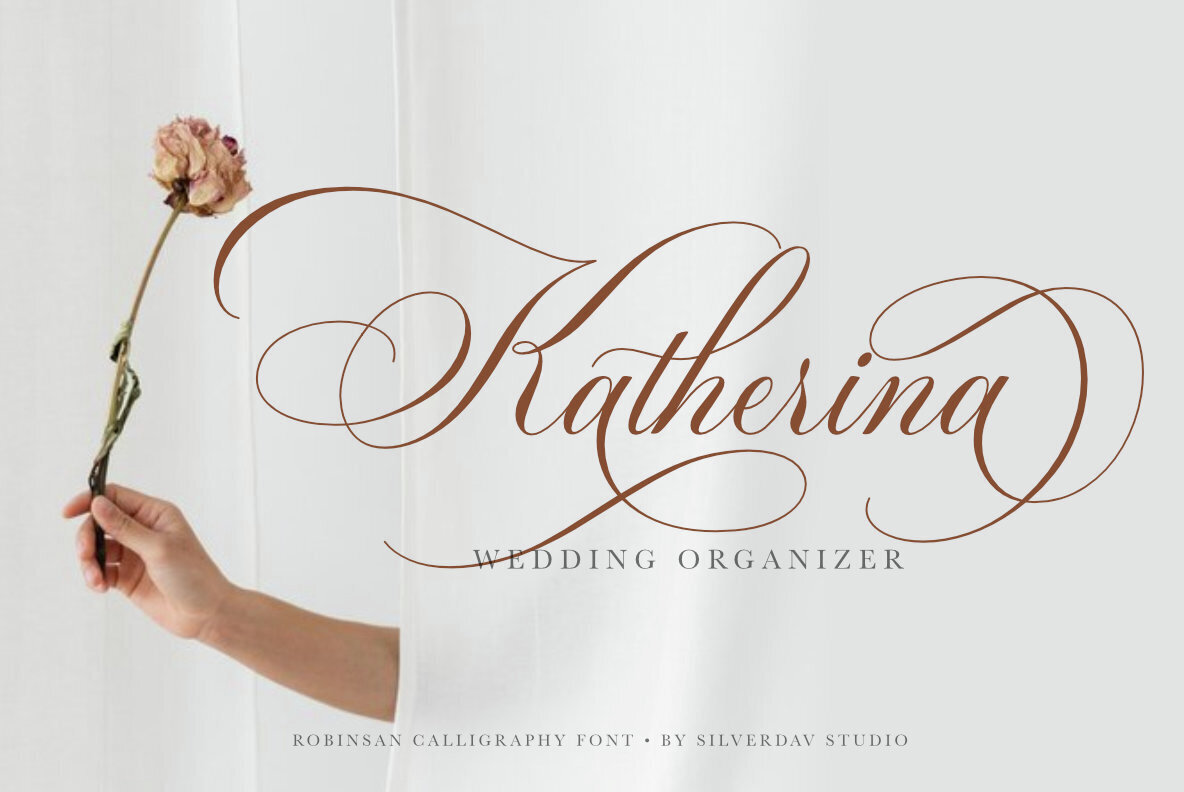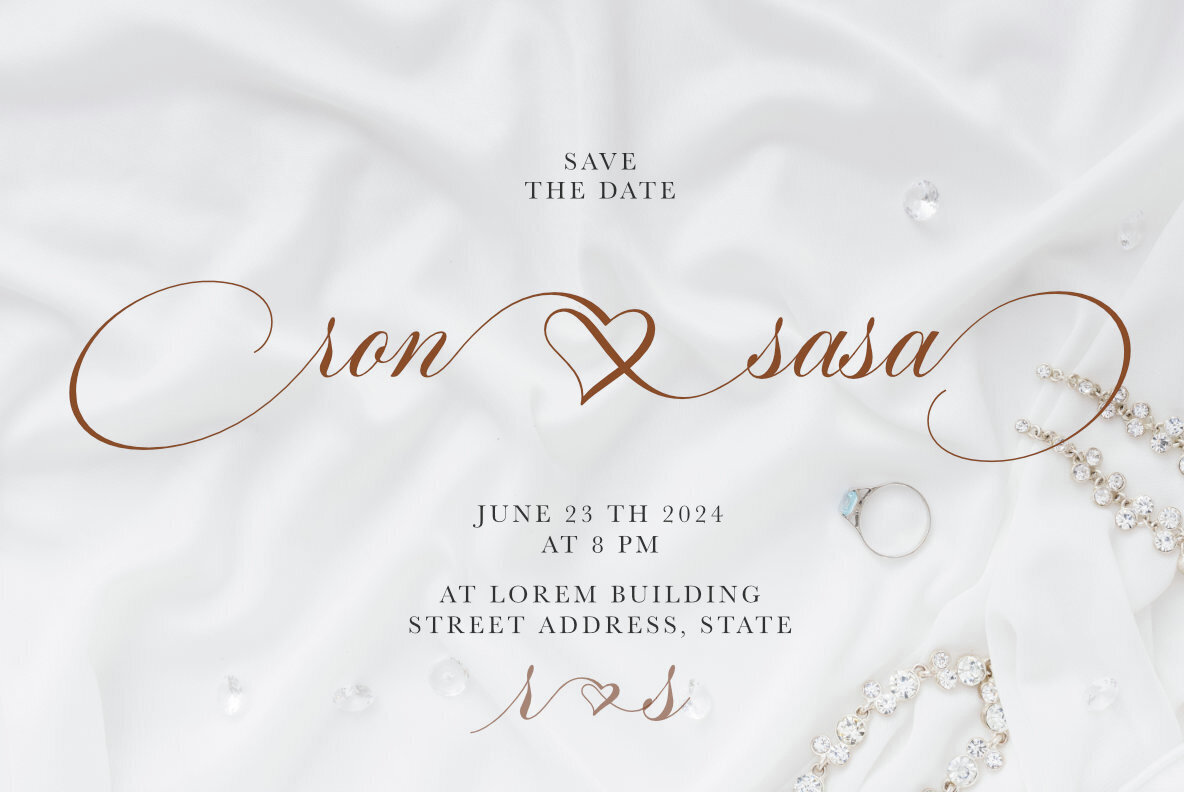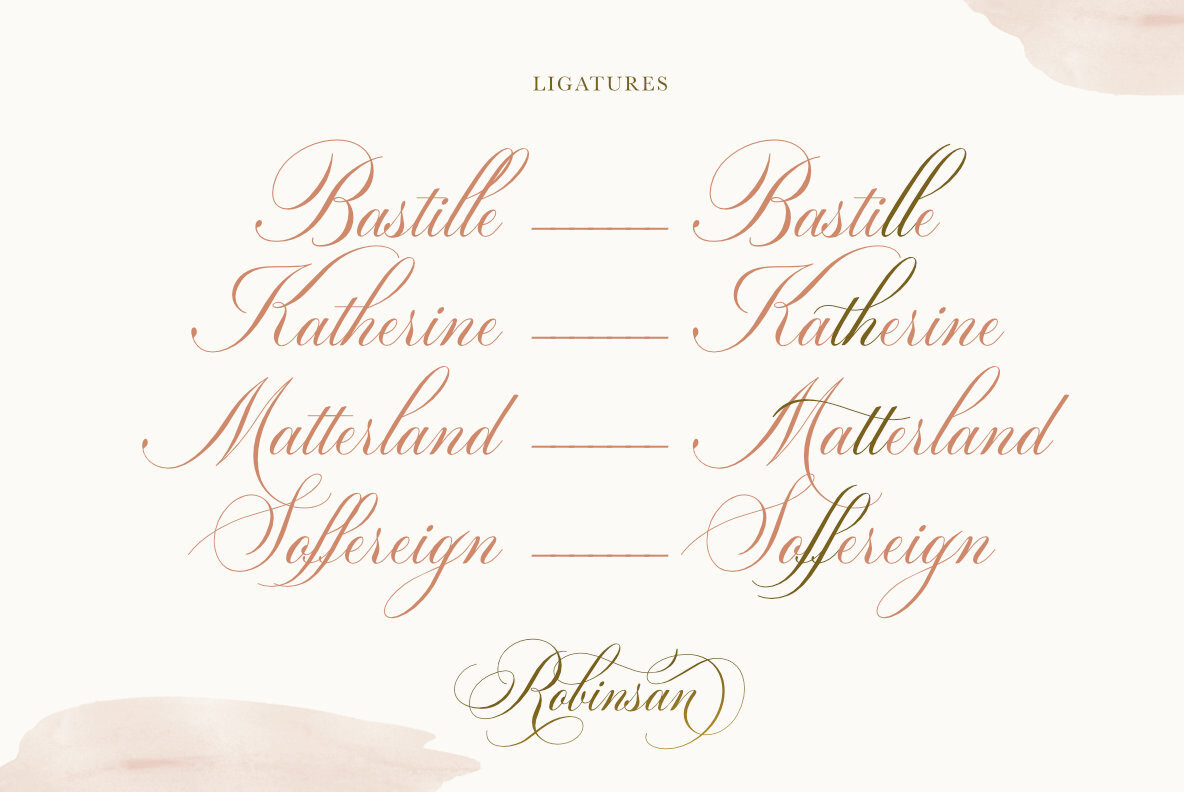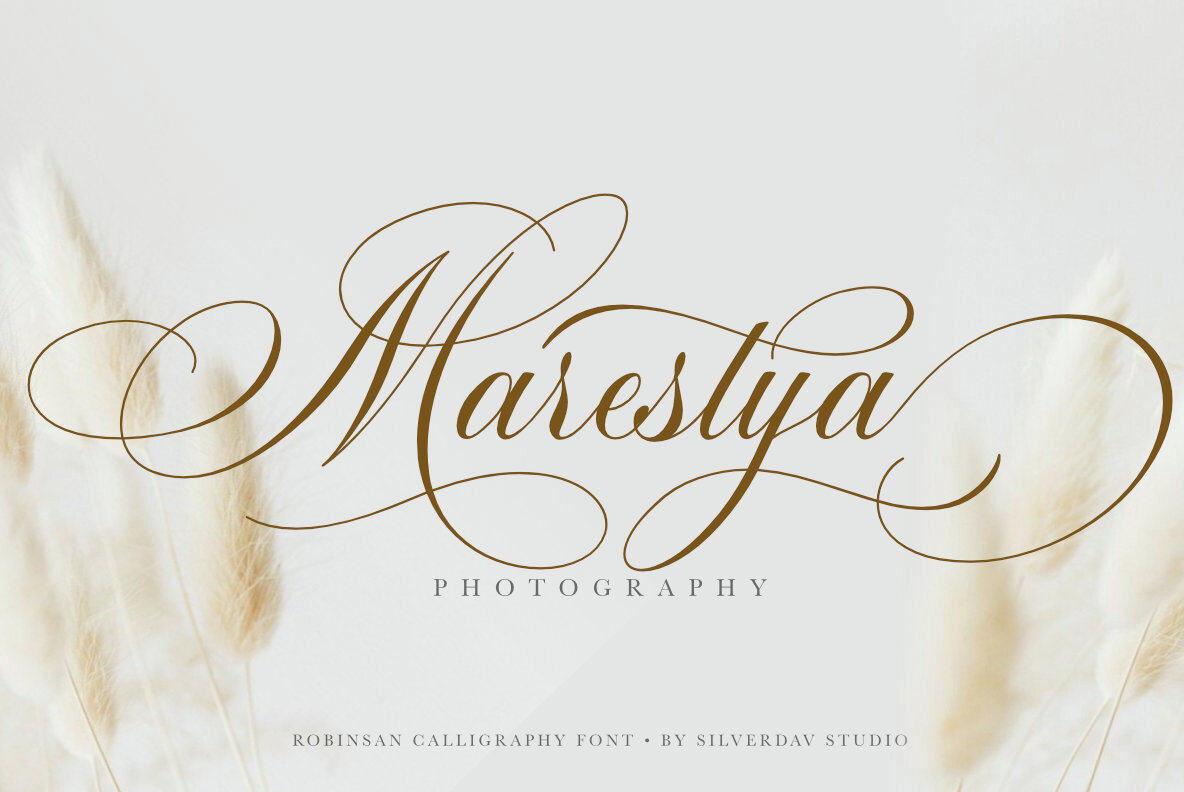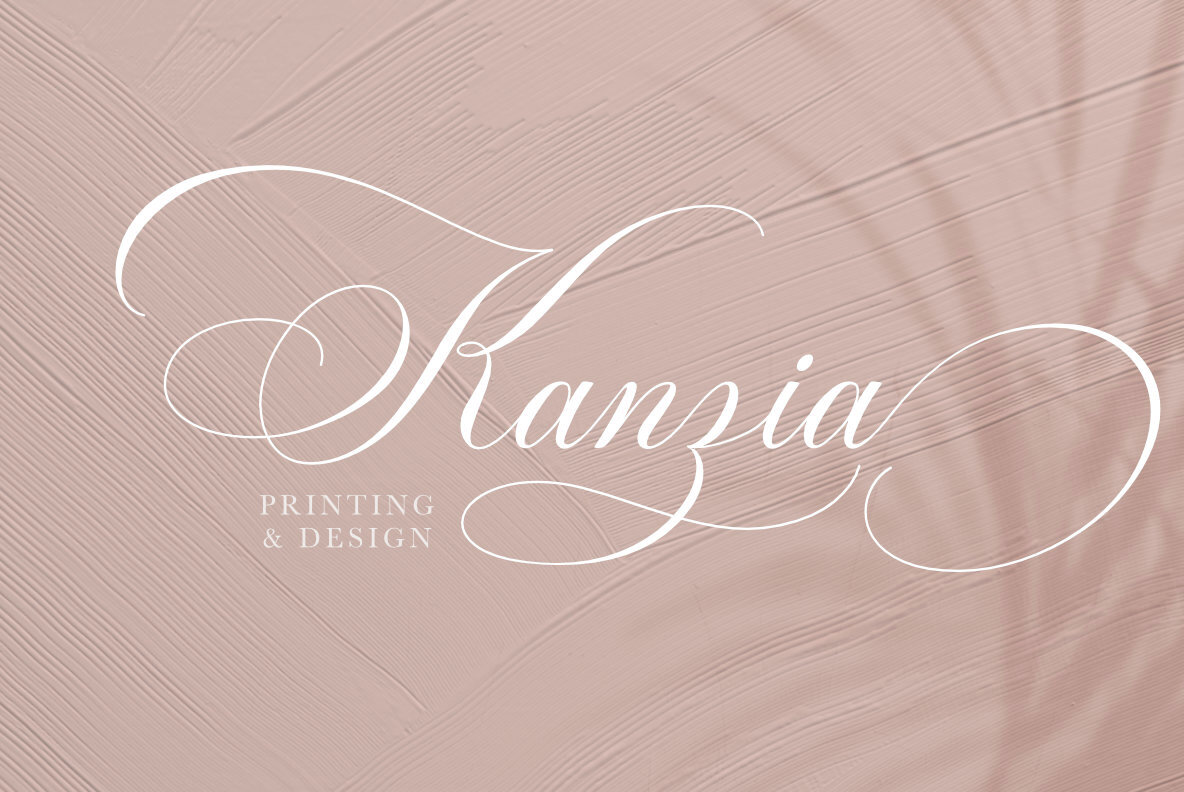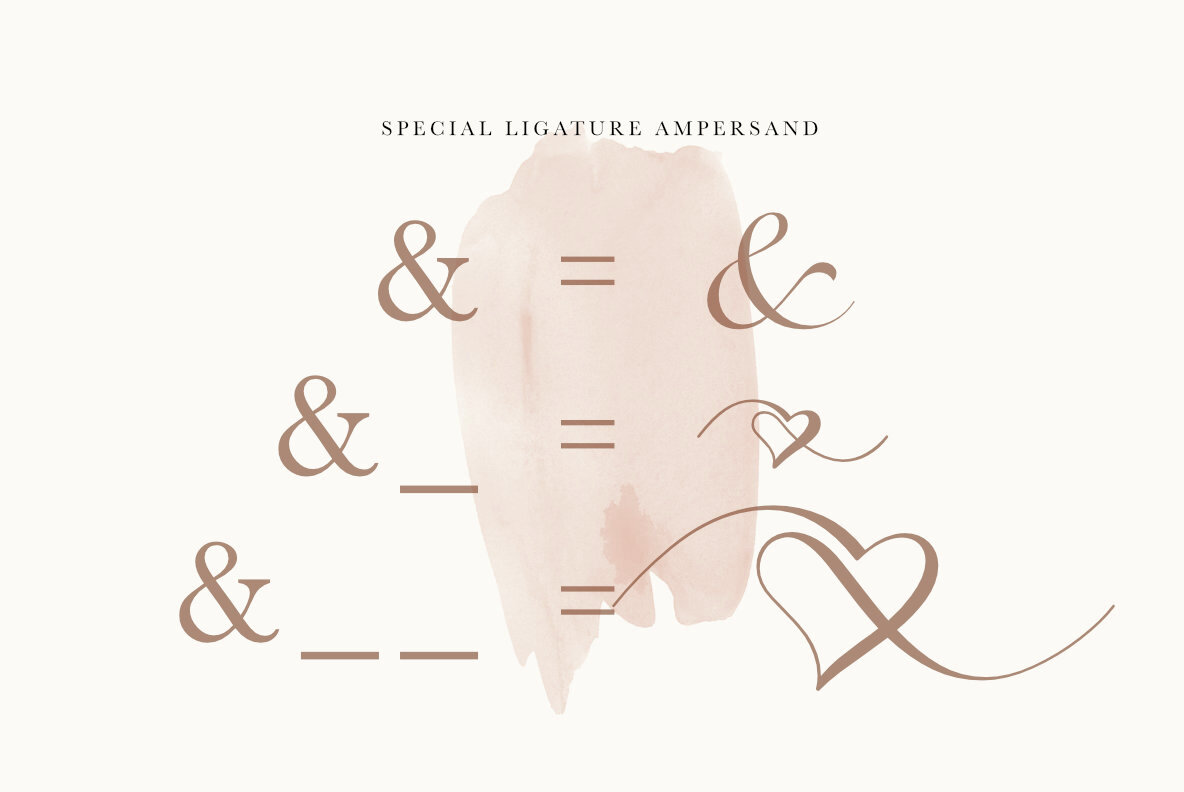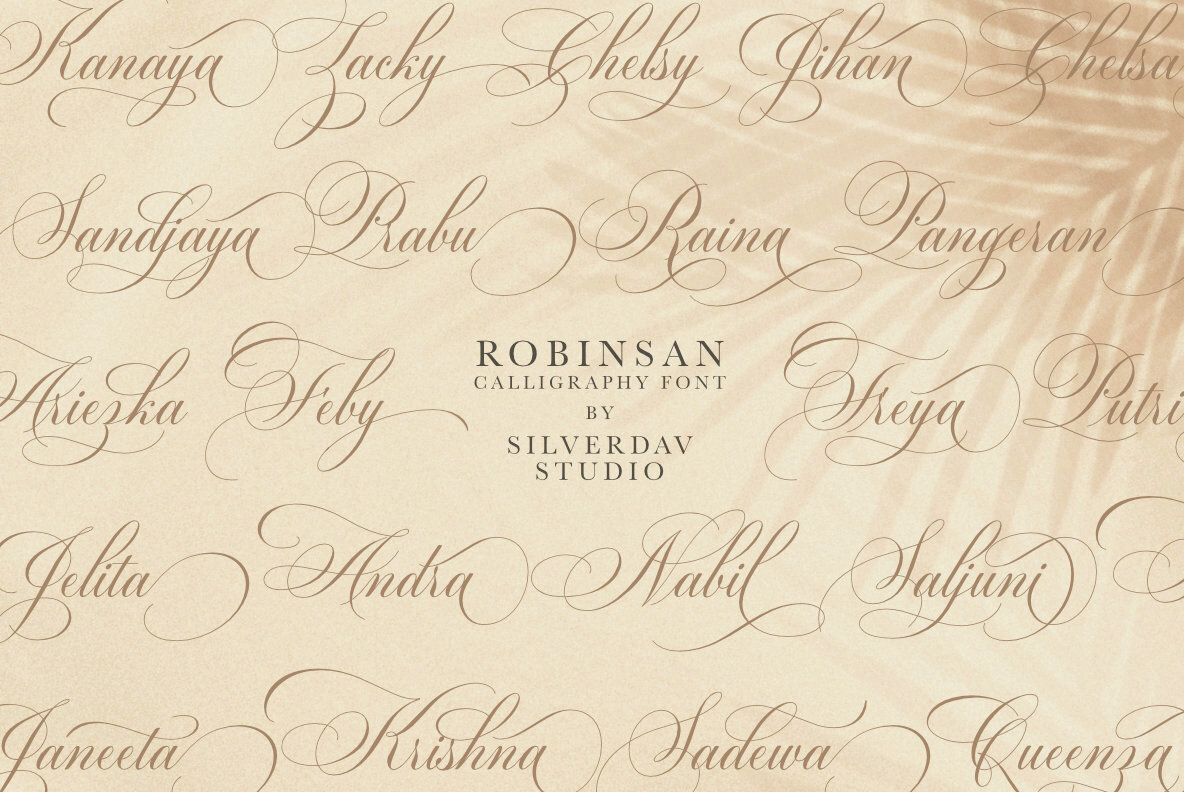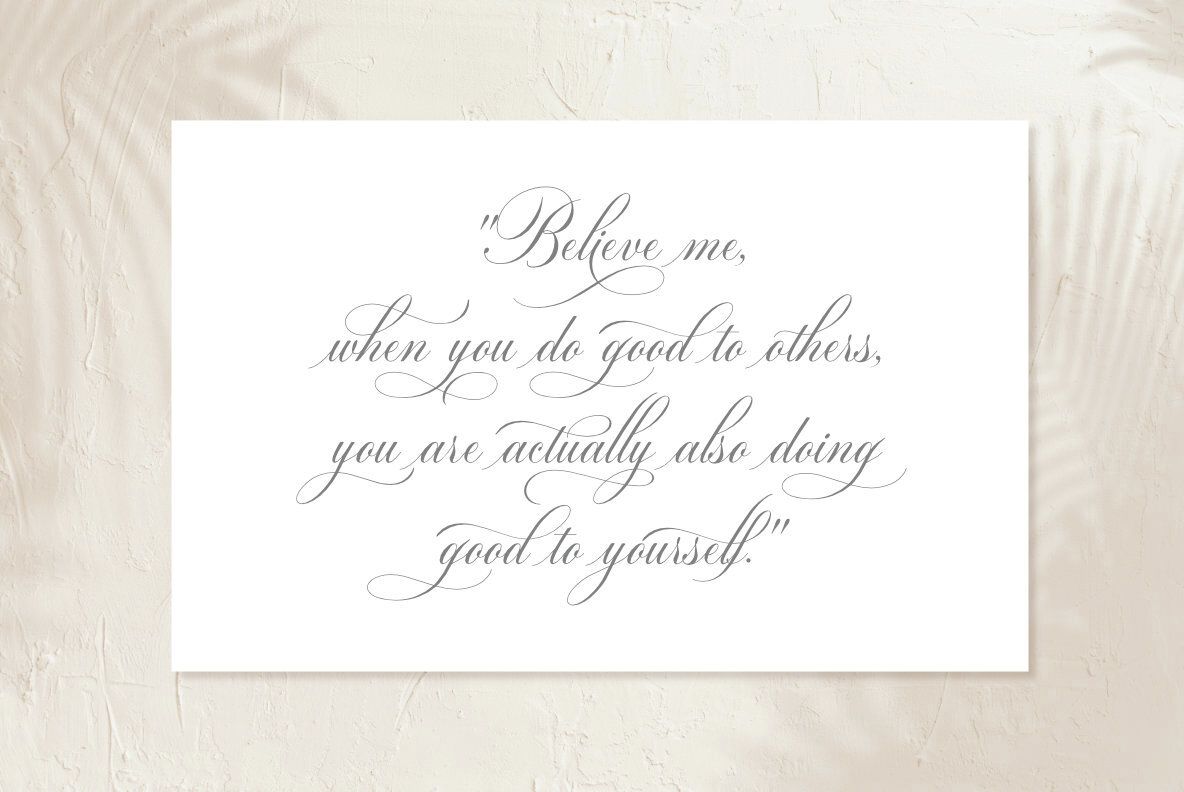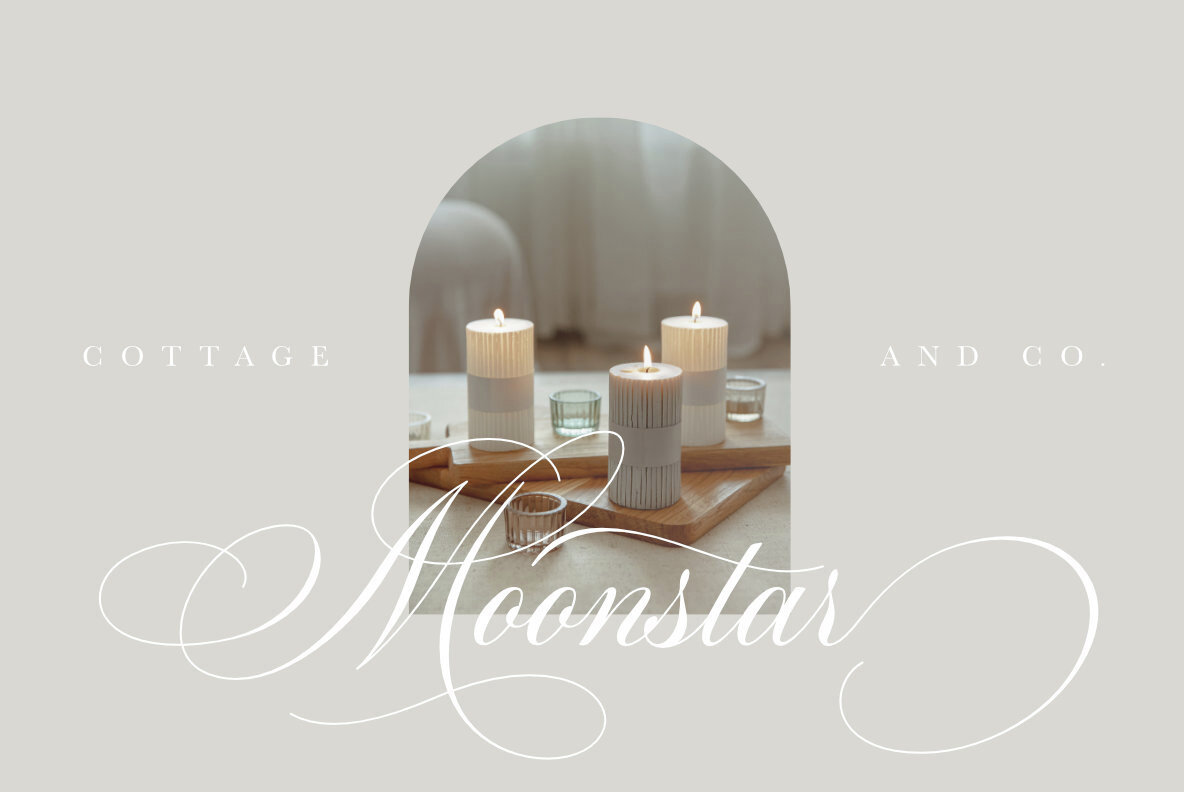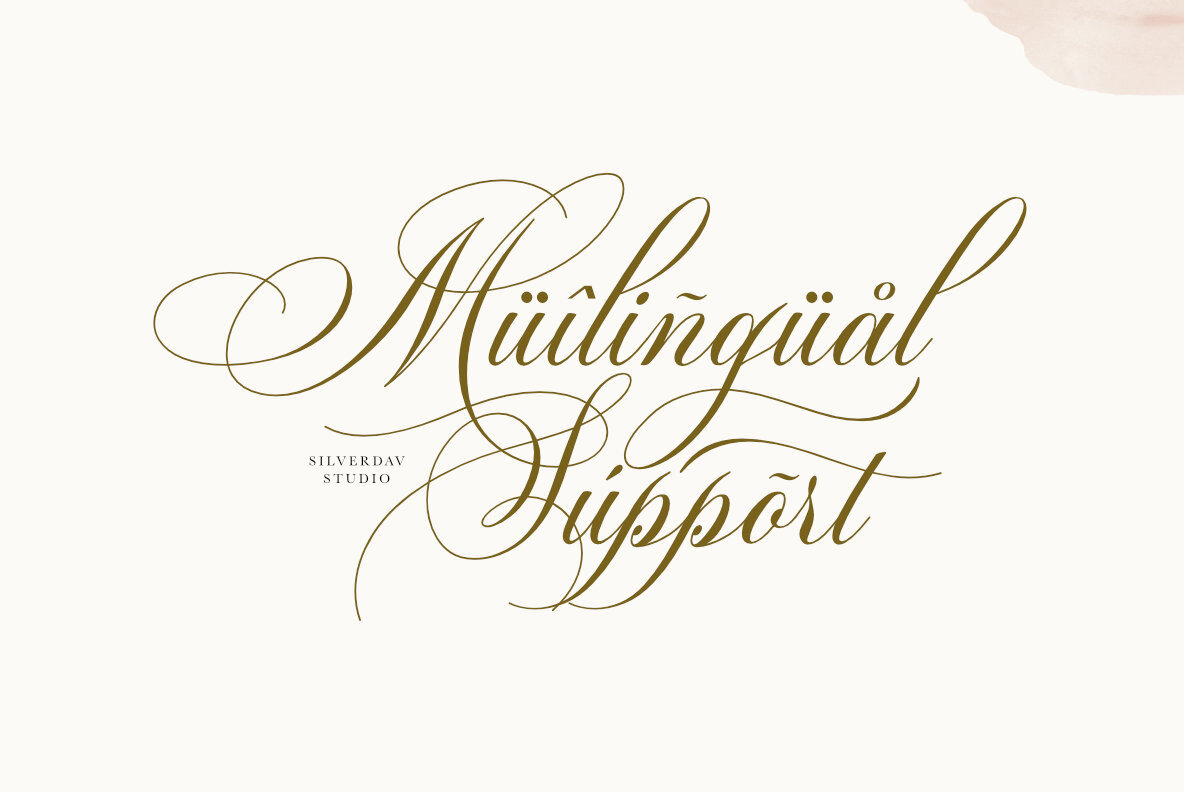
Robinsan Font
Robinsan Regular
The "Robinsan" font features a premium calligraphy style with a highly elegant form. Its beautifully crafted curves are designed to add an elegant touch to your projects. Robinsan Font is ideal for a wide range of design needs, including logos, branding, wedding invitations, handicraft products, quotes, magazine covers, and more. With numerous alternatives and ligatures, Robinsan Font allows you to enhance your designs with elegance. It supports approximately 90 languages, making it a versatile choice for global communication.Robinsan: Elegant Calligraphy Font by David Kasidi